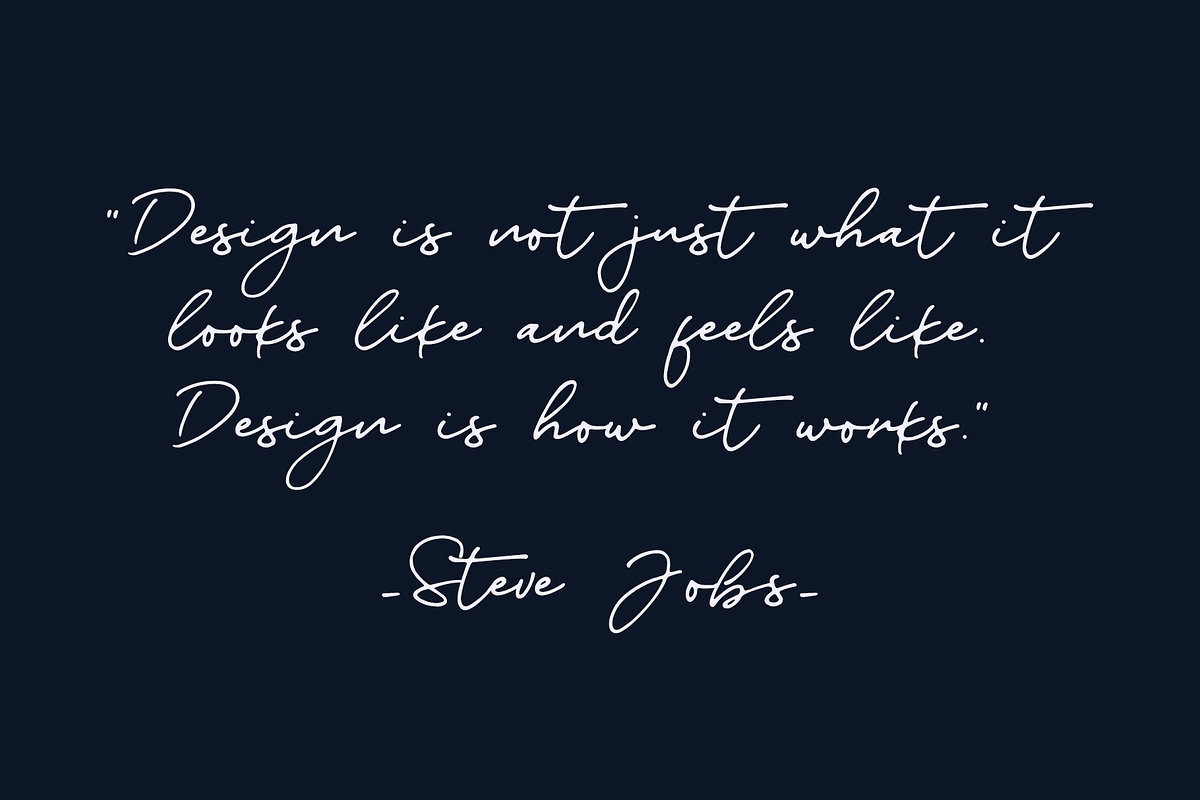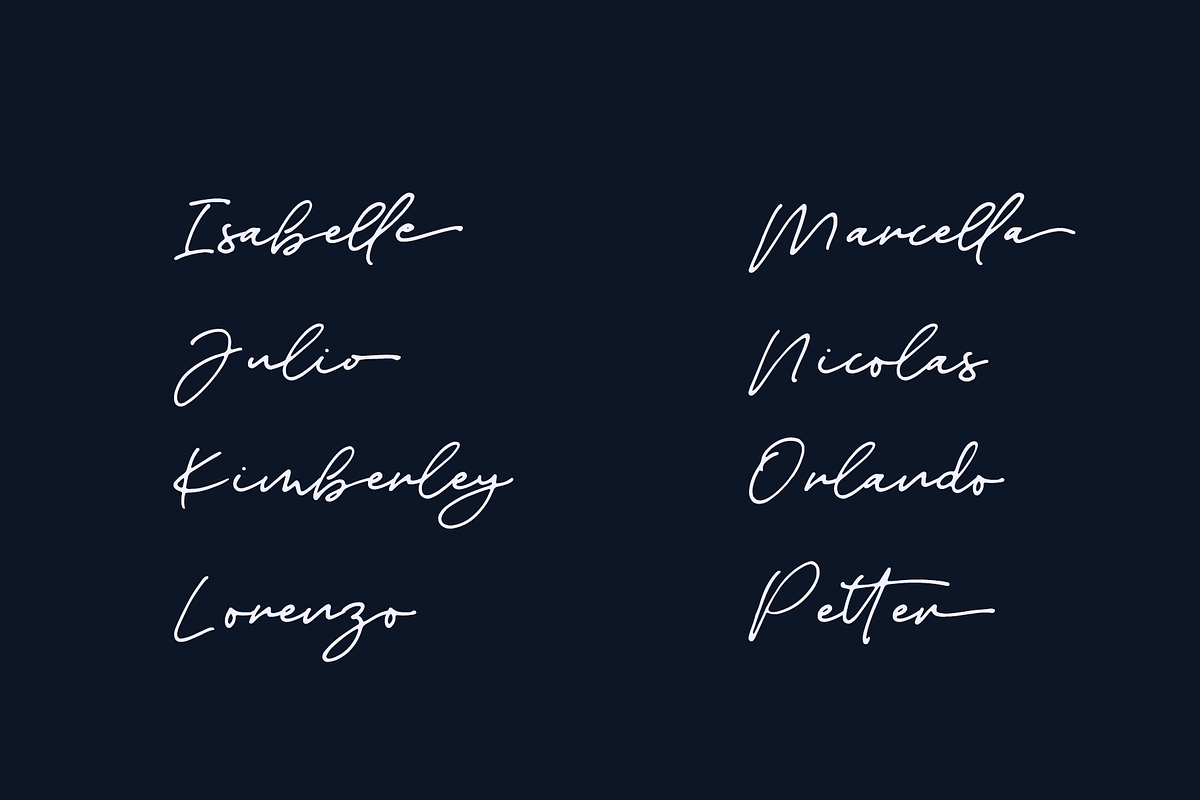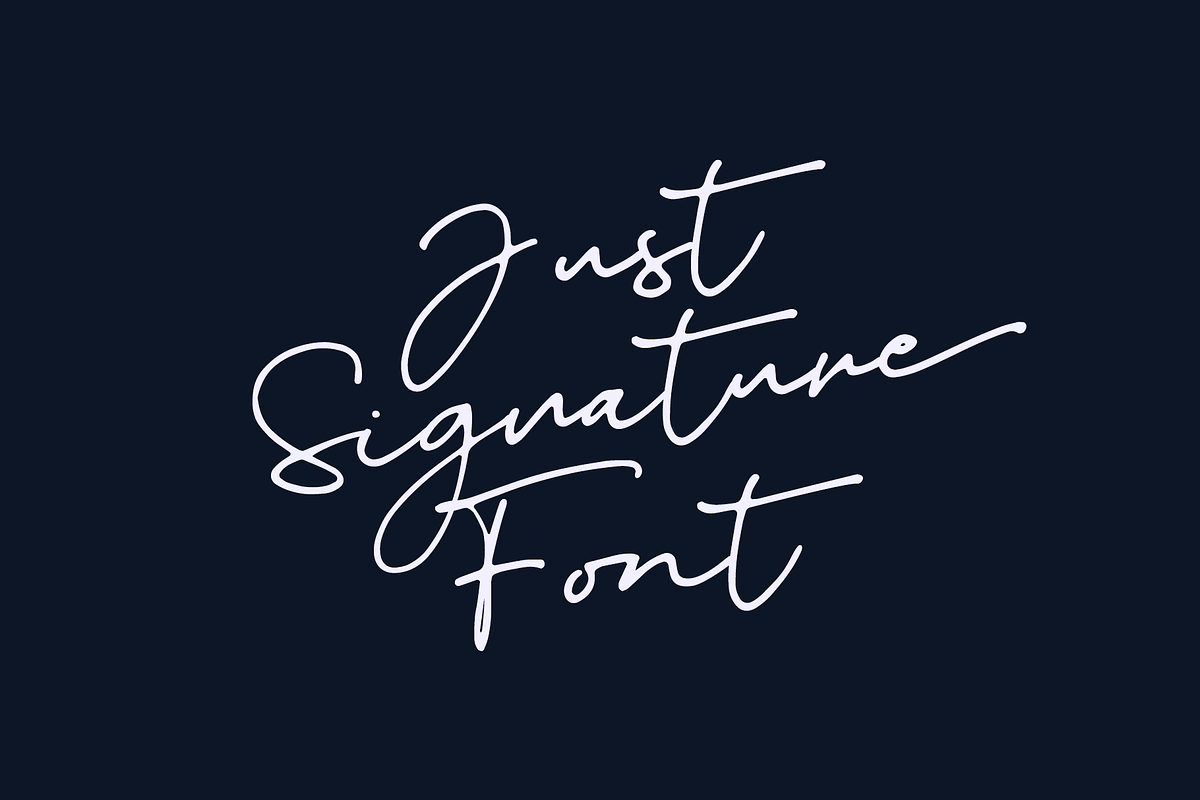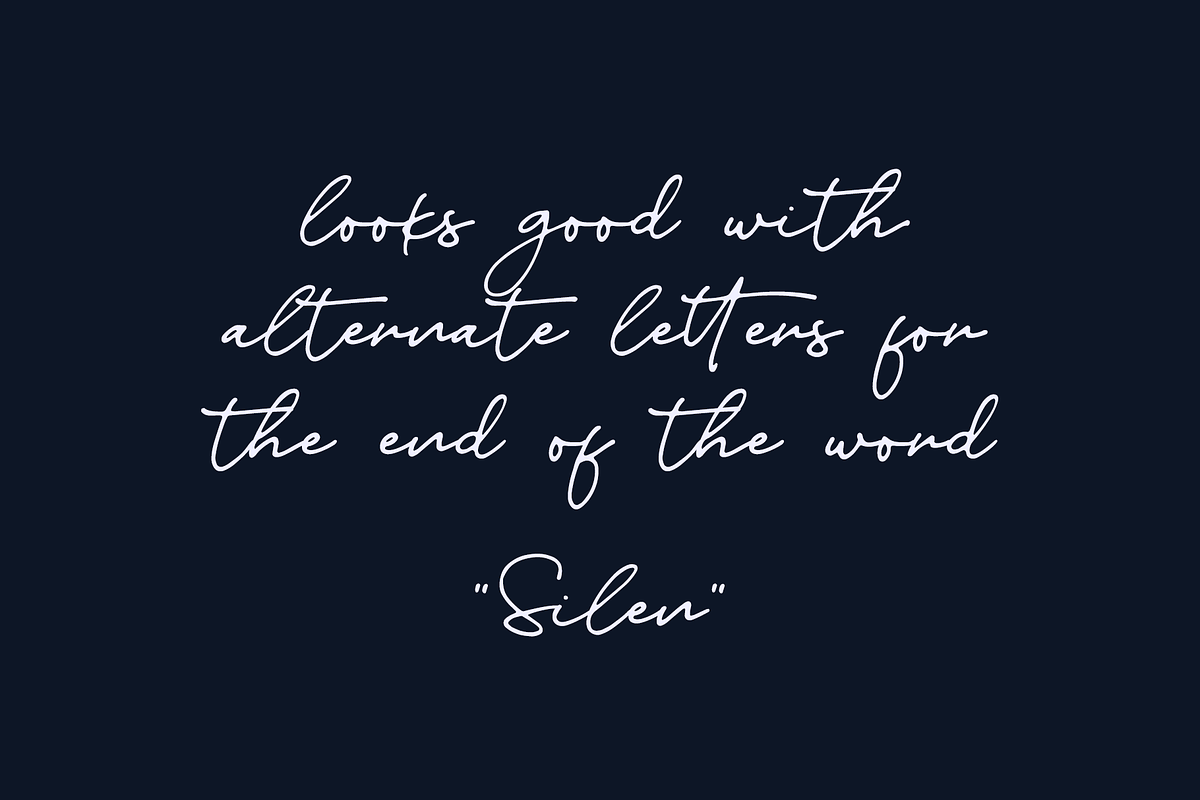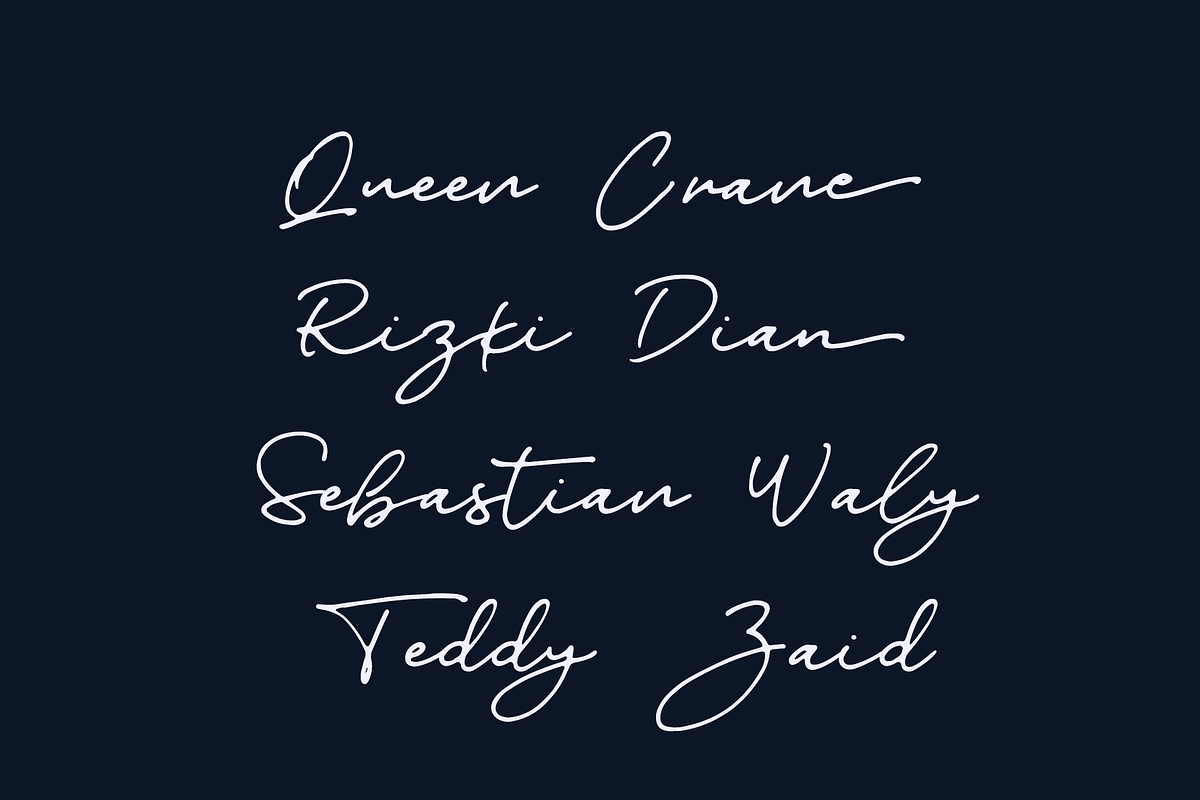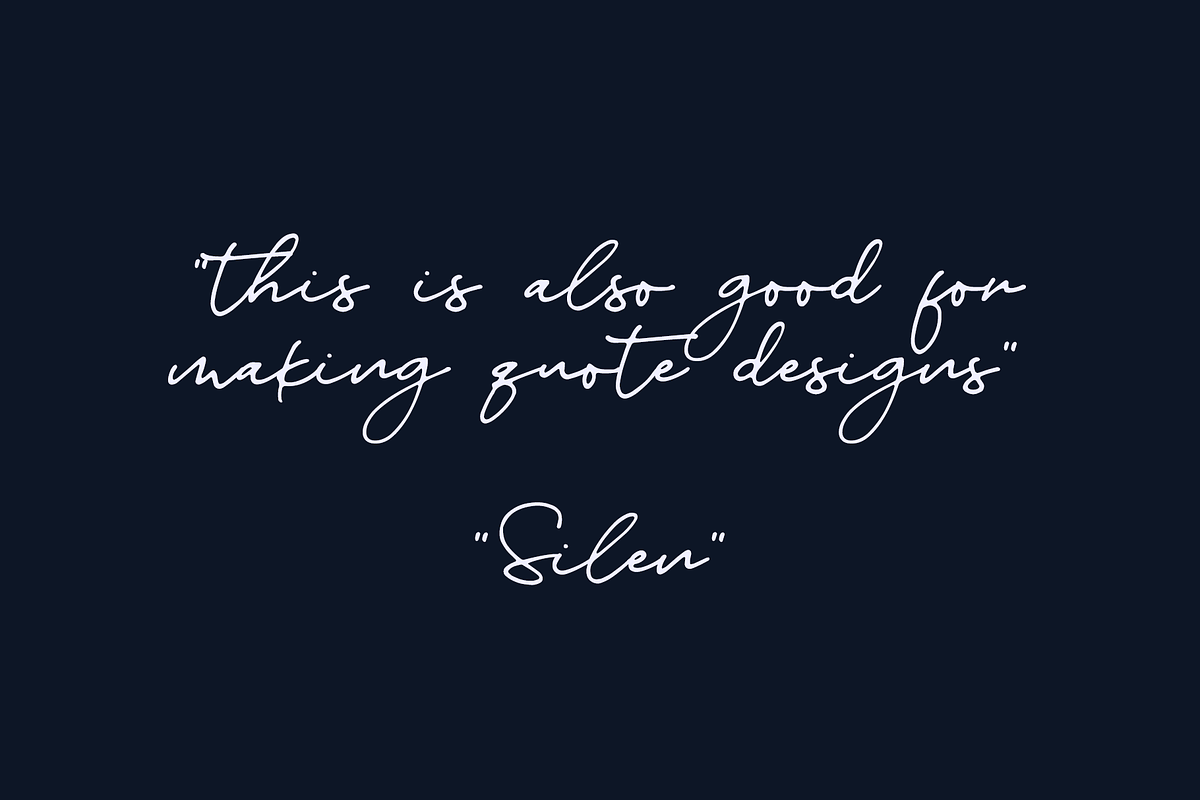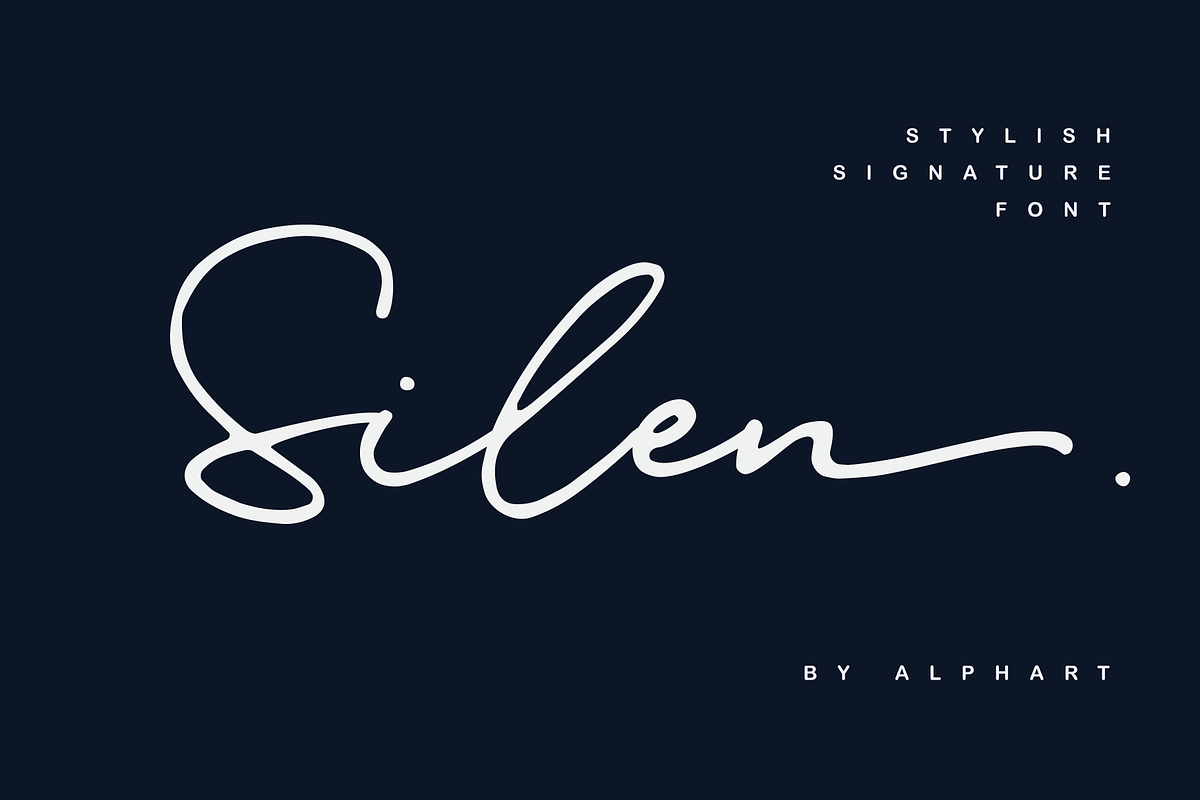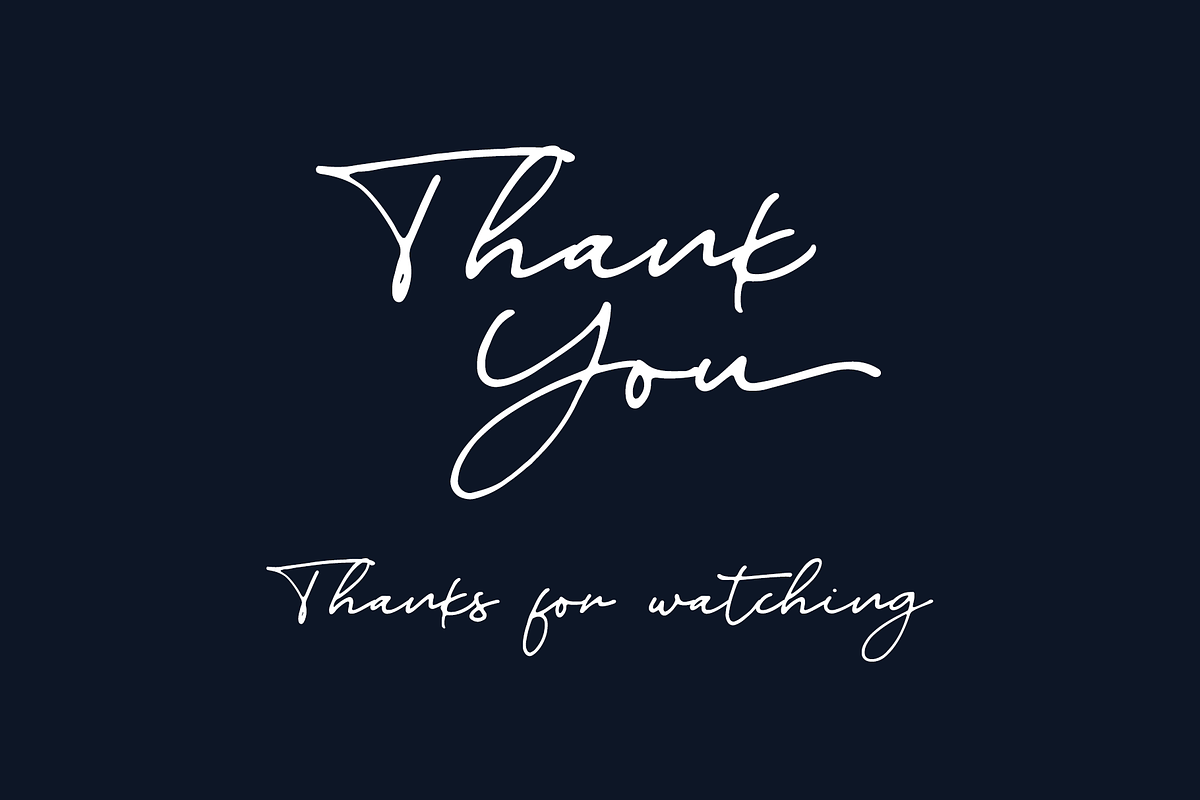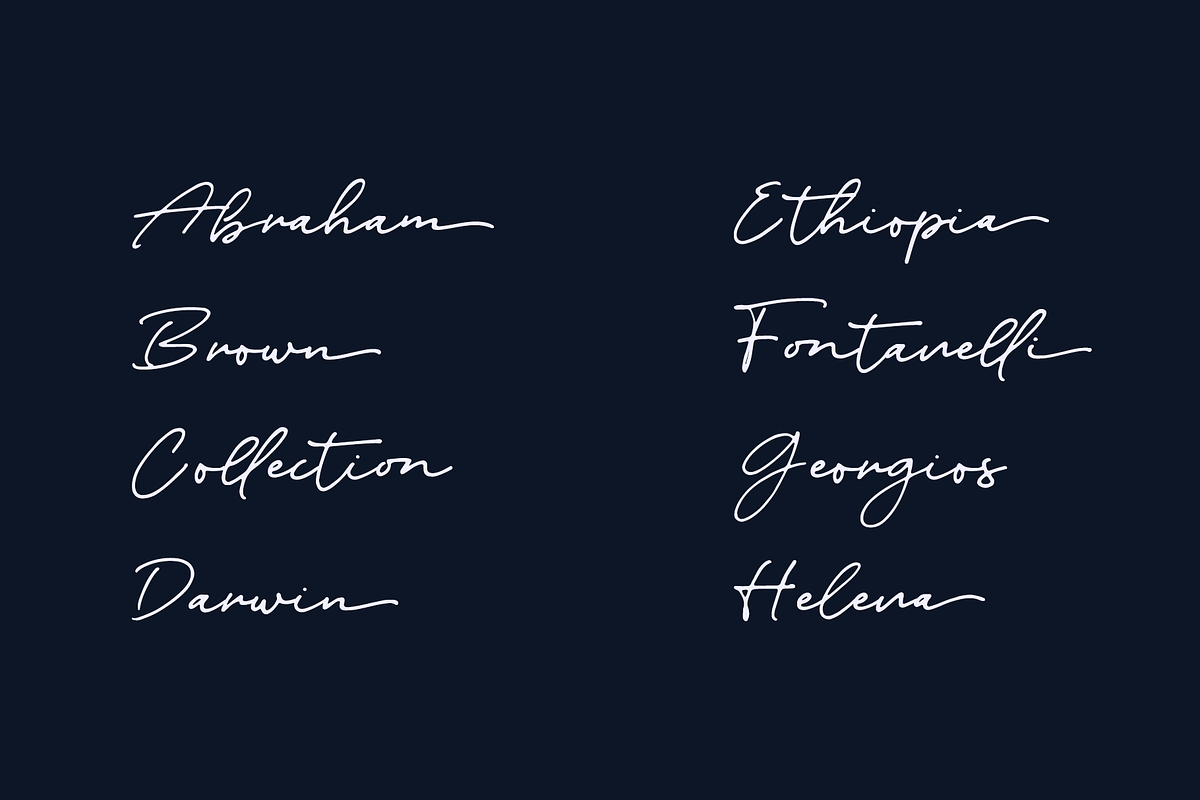
Silen - Stylish signature font
Silen is a handwritten script font with a pen and natural style, this font is great for your next creative projects such as watermark on photography, quotes, business card, and many other design project.
Silen comes with uppercase letters, lowercase letters, numbers and punctuation